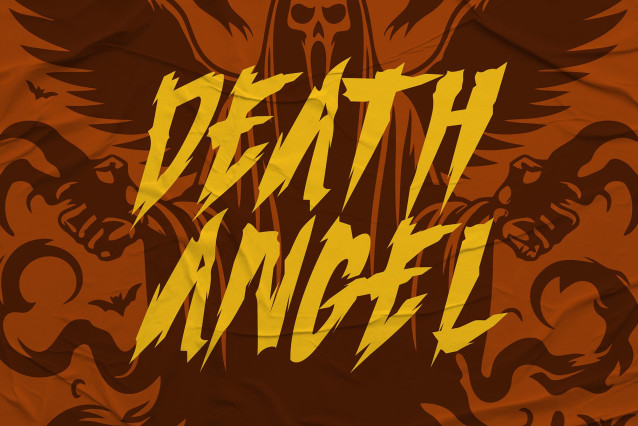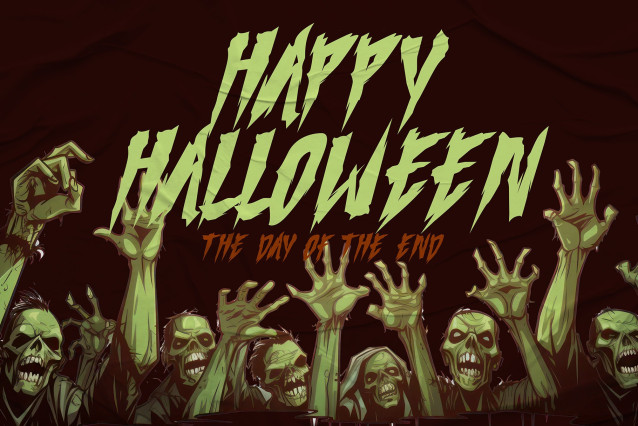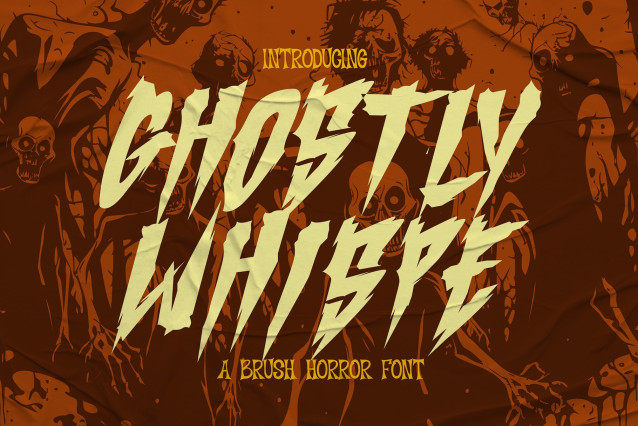
Ghostly Whispe Horror Font
Ghostly Whispe Horror Font – Brush Horror Font, a chilling all-caps typeface crafted to bring a haunted edge to your creative projects. Whether you’re designing Halloween posters, movie titles, eerie logos, or dark event invitations, this brush horror font ensures your work will stand out with bold, terrifying style.
From jagged brush strokes to unsettling textures, Ghostly Whispe is a must-have tool for designers who want to capture fear and intrigue.
Ghostly Whispe is an all-caps brush horror font designed to maximize impact in every layout. Its distressed strokes simulate hand-painted brush lettering, instantly giving your projects an authentic horror aesthetic.
This brush horror font is ideal for Halloween campaigns, haunted house branding, spooky movie posters, and themed social media graphics. Its all-caps form makes it bold and commanding, ensuring your message cannot be ignored.